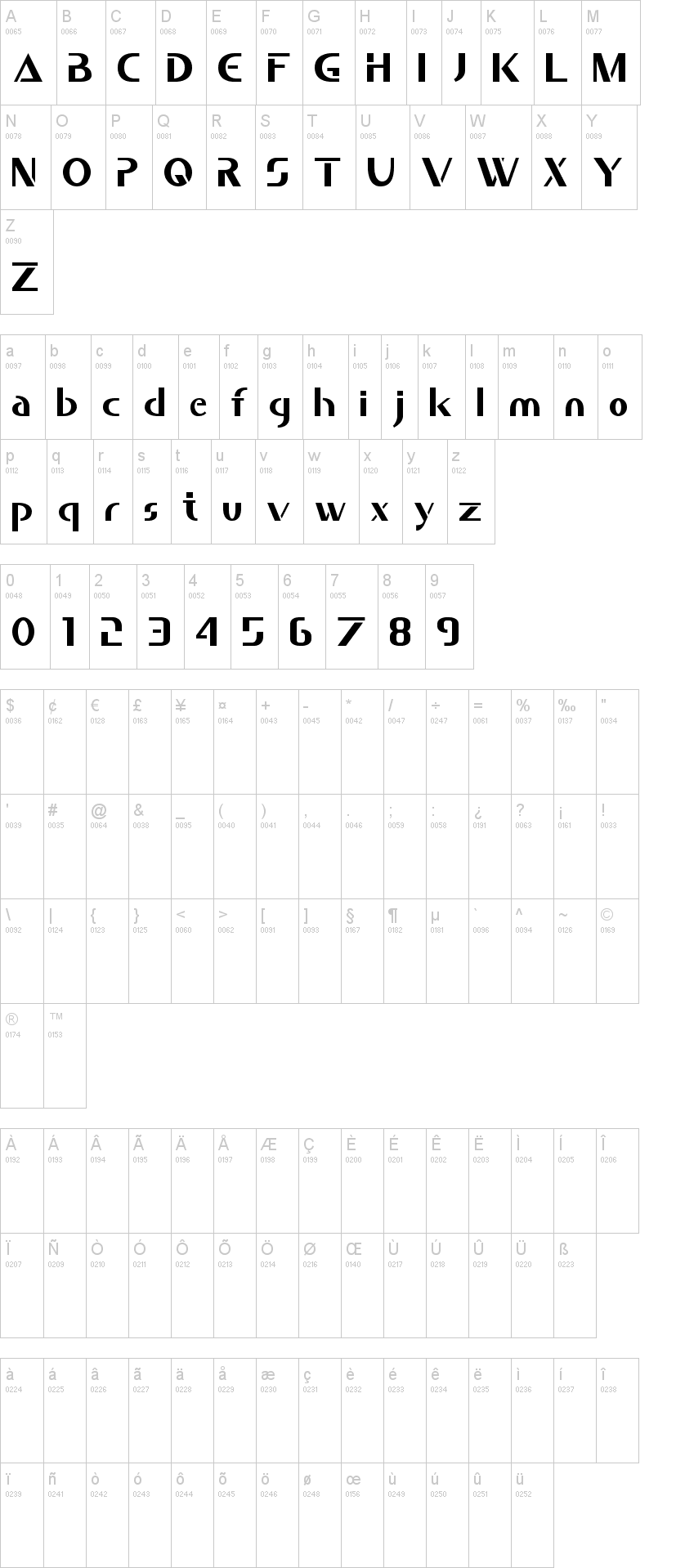
The Best Selection Of Free Saber Fonts
Are you looking for the perfect font to give your project a unique and creative edge? Saber fonts have become increasingly popular in the last few years, and with good reason. Saber fonts are strong, dynamic, and versatile, making them perfect for any project. But, with so many saber fonts available, it can be hard to choose the perfect one for your project. To make it easier, we’ve put together a selection of the best free saber fonts for you to choose from.
Saber Serif
Saber Serif is a bold and strong font with a modern feel. The font has a unique look that can add strong visuals to any project. It’s great for titles, headers, and logos, and is sure to give your project a unique and professional feel. Saber Serif is free for both personal and commercial use!
Saber Sans
Saber Sans is a sleek and modern font that is perfect for minimalist projects. The font has a stylish look that can add elegance and sophistication to any project. It’s great for titles, logos, and headers, and is sure to give your project a professional feel. Saber Sans is free for both personal and commercial use!
Saber Slab
Saber Slab is a bold and powerful font with a classic feel. The font has a unique look that can add a sense of strength and stability to any project. It’s great for titles, headers, and logos, and is sure to give your project a unique and professional feel. Saber Slab is free for both personal and commercial use!
Saber Script
Saber Script is a stylish and modern font that is perfect for creative projects. The font has a unique look that can add a sense of creativity and fun to any project. It’s great for titles, logos, and headers, and is sure to give your project a unique and professional feel. Saber Script is free for both personal and commercial use!
Saber fonts are a great way to give your project a unique and professional feel. They are bold, dynamic, and versatile, and are sure to make your project stand out. With so many free saber fonts available, you’re sure to find the perfect font for your project. So, go ahead and pick your favorite and get creative!